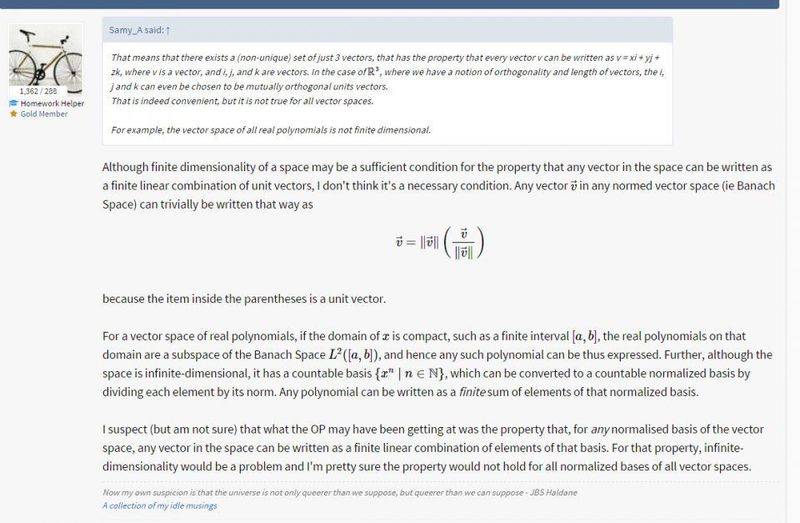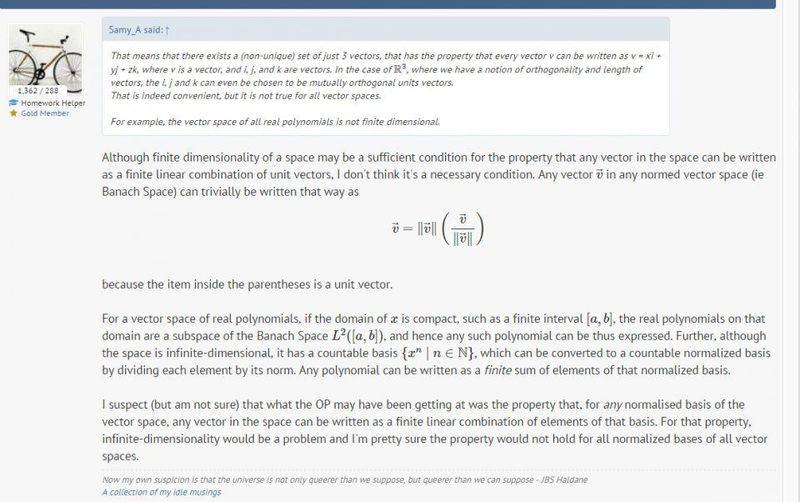
I see that too. Must have missed something.Krylov said:Don't know if that is intentional.
Bizarre since I never touched anything with the editorSamy_A said:I have the impression that the font size in the edit box is smaller than it was.
And now is again larger, as it was before.Greg Bernhardt said:Bizarre since I never touched anything with the editor
Actually, as I'm typing this, I see that the font in the composition box is still serif. Don't know if that is intentional.
I think it worksGreg Bernhardt said:Back to PT Sans. Oddly I just cycled through some very common Google fonts. Not sure why they didn't work here.
I did increase by 1pt. Did you like the size before at 15pt? Personally I have my browser zoom set to 110% so before the text was too small for me to read easily.Samy_A said:And now is again larger, as it was before.
It's fine now, but thanks for the 110% tip. Just applied that too and it makes it much better for me.Greg Bernhardt said:I did increase by 1pt. Did you like the size before at 15pt? Personally I have my browser zoom set to 110% so before the text was too small for me to read easily.
Source Pro wins among the ones mentioned here.Greg Bernhardt said:
So I'm confused, you think at 100% the post text is still too small?Samy_A said:It's fine now, but thanks for the 110% tip. Just applied that too and it makes it much better for me.
I'm w/ you Greg. I found the old a bit hard so magnified my browserGreg Bernhardt said:I did increase by 1pt. Did you like the size before at 15pt? Personally I have my browser zoom set to 110% so before the text was too small for me to read easily.
How about now as I increased it by 1pt from yesterday?phinds said:I'm w/ you Greg. I found the old a bit hard so magnified my browser
Can't tell w/o side by side since although I have a memory like an elephant, I keep forgetting where I put the peanuts and I'm not sure where I have my browser settings vs where they were when I changed them to make PF a bit more readable. I certainly can't remember anything from as way far back as yesterdayGreg Bernhardt said:How about now as I increased it by 1pt from yesterday?
Oh, god no, not his g. I really don't want to see his g.Silicon Waffle said:I also see the forums texts by default are a little small. I have to zoom them into get a better view. I find the body text looks good at size of 15px. And Greg can show his g part that is being cut off if the username's top value becomes smaller. Come on Greg! Show us your "g" please.
To be honest, in between all the font changes at one point I thought it said: Greq. And almost made a thread to ask whether it was Greg or Greq because I felt something was off.